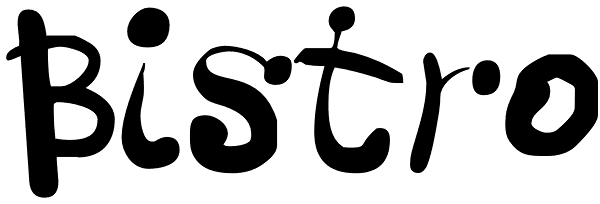
Bistro
Bistro and Hot Sauce have been prepared quickly. In Bistro you will find 10 fine traces from coffee cups, and in HotSauce 10 pleasant-for-eyes stains from sauce. Both fonts are created in the 1998. OpenType revision, with extended Latin characters...